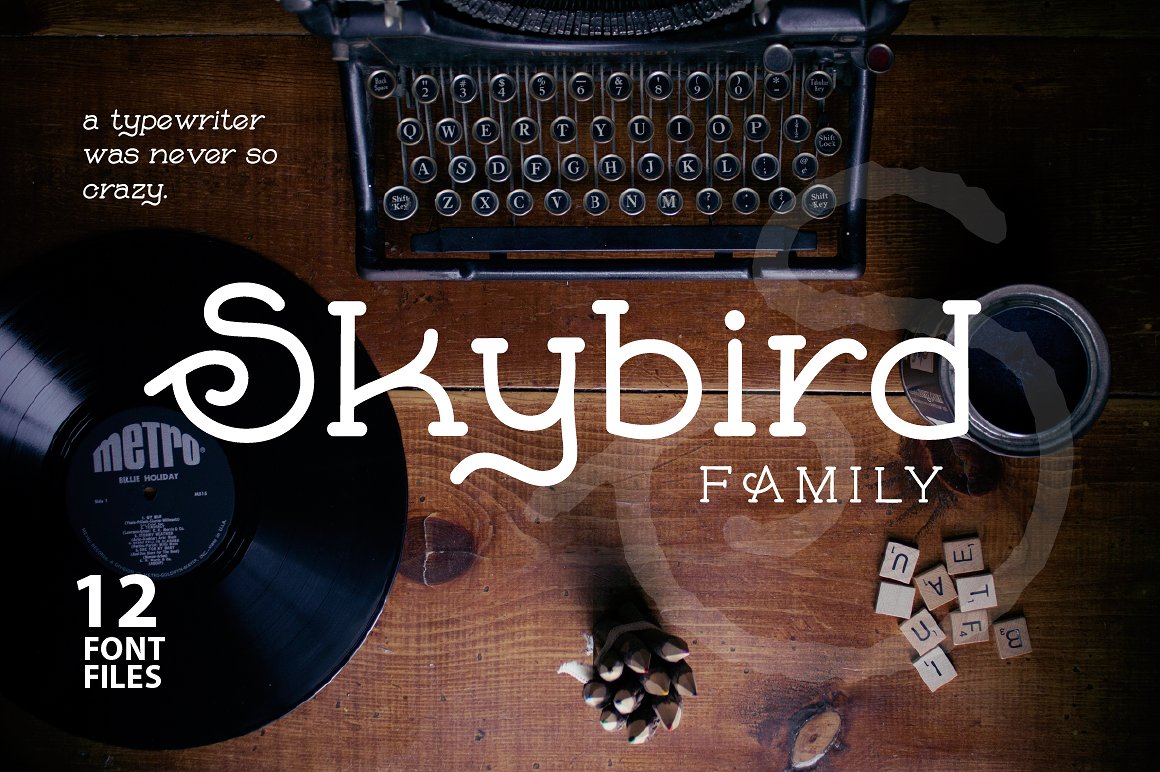
Skybird Font Family
Skybird is a new crazy serif font. Its unique glyph designs make it a special typewriter retro font. The glyphs written in small letters are looking normal, but try to write just in caps to get the real crazy nature and fresh style of the font.